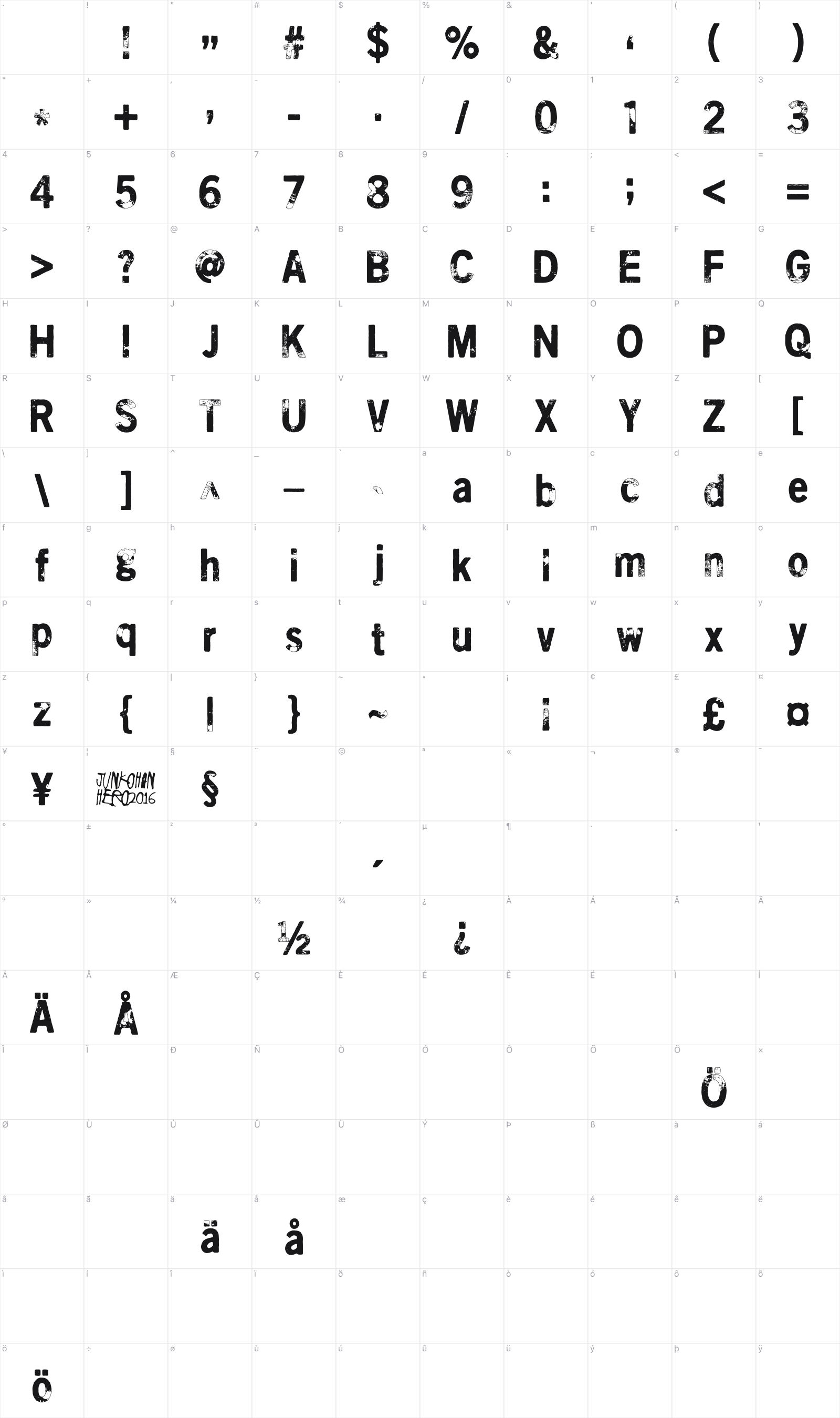
Scratch X
Scratch X is a bold, heavily distressed display face from junkohanhero that looks like it's been scraped across concrete and left to weather. The letterforms carry a raw, gritty texture with worn edges and visible roughness throughout, giving it the kind of authenticity that's hard to fake with a simple filter. Best kept to headlines and poster work where you want type that feels genuinely beaten up.